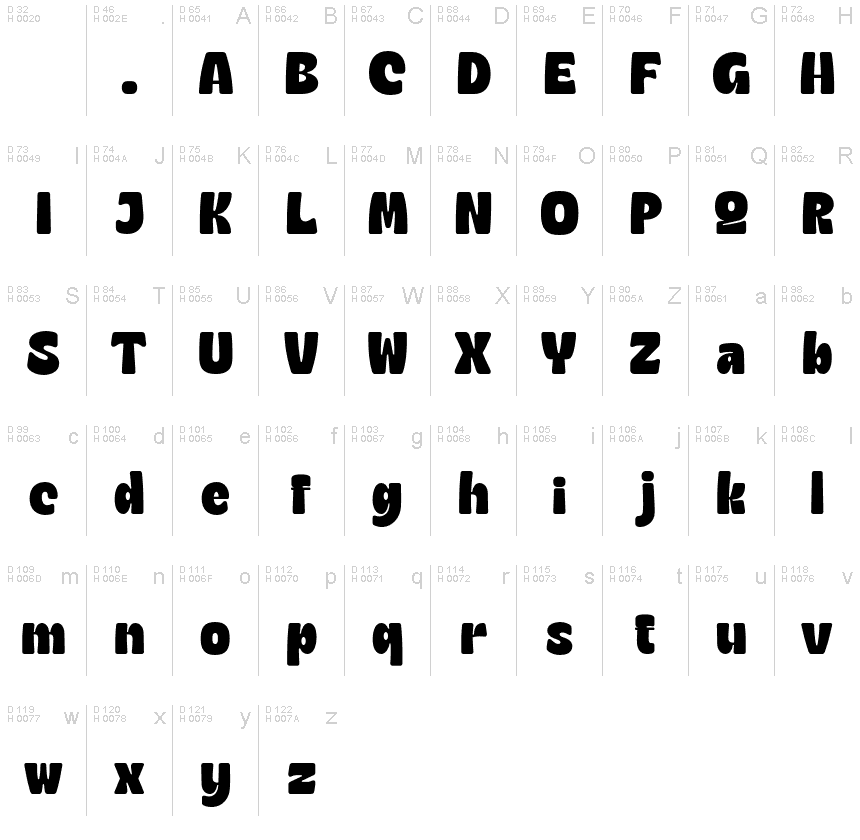
GyozaDEMO-Regular
Gyoza emerges as a playful homage to the spirited pop culture of the 90s, crafted with precision by Dharmas Studio. This extra-bold display font embodies the groovy flair of childhood cartoons and comic books, bringing an unmistakable vibrancy to creative projects. Its design boasts four distinct weights—Regular, Semibold, Bold, and Black—along with a variable font option that allows for seamless weight transitions.
The Gyoza typeface is not just about bold presence; it's about versatility. The inclusion of Ink Trap details adds an edgy twist to its character, offering designers a fresh take on classic aesthetics. Perfectly balanced for both modern and retro designs, Gyoza excels in a variety of applications—whether it's crafting an eye-catching logotype or wrapping a product in nostalgic charm.
With its comprehensive typographic toolkit that caters to headlines as well as body text, Gyoza stands ready to elevate your branding narratives or packaging designs with its distinctive style and graphic adaptability.